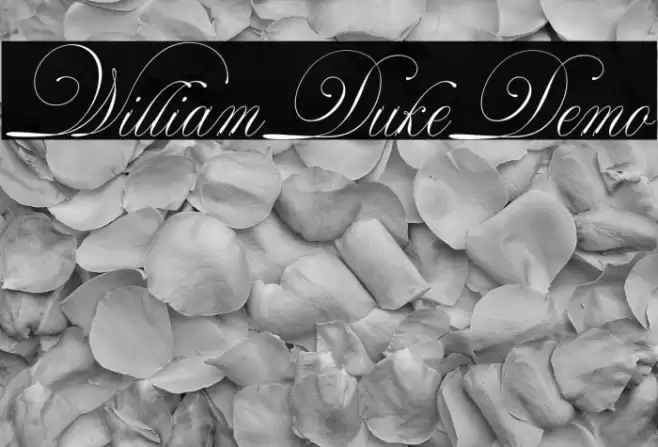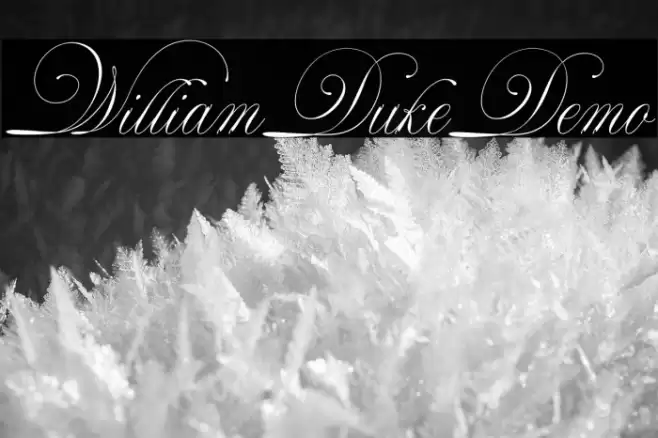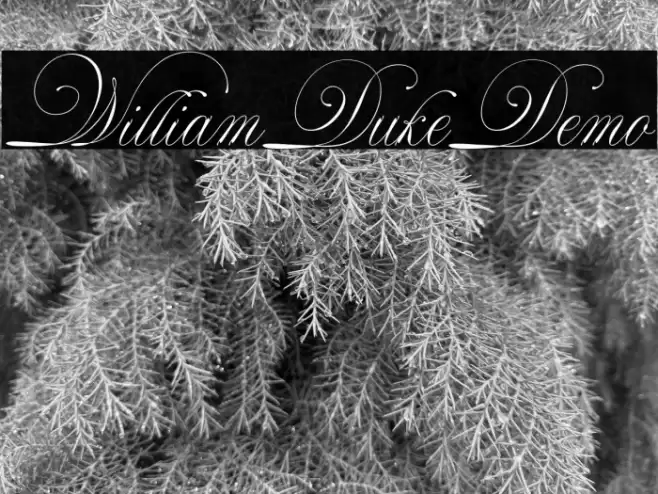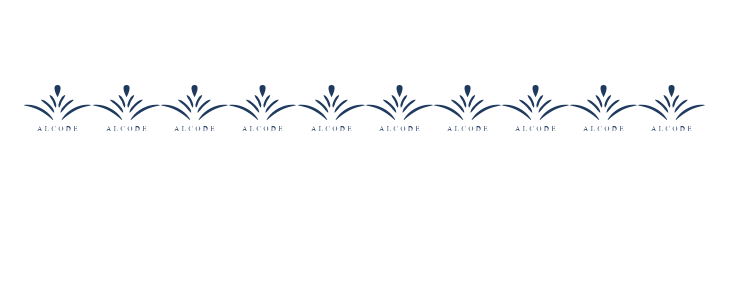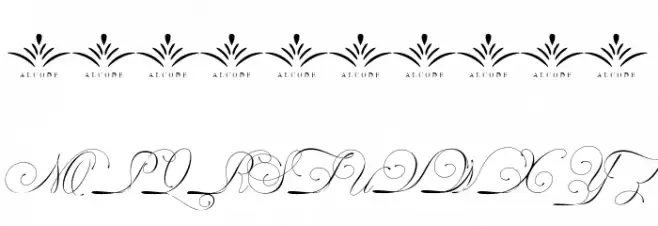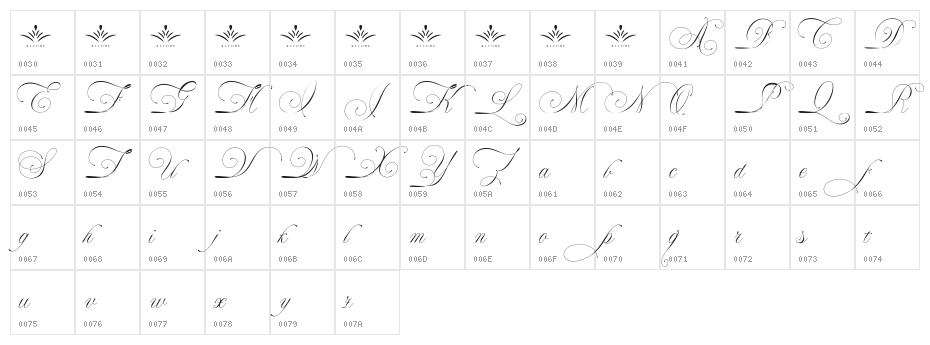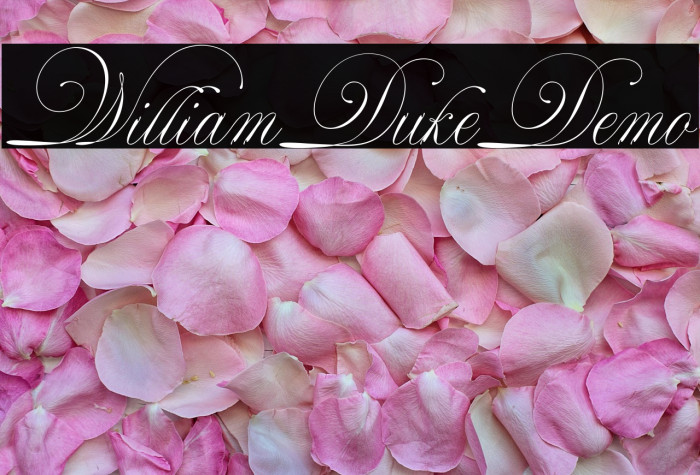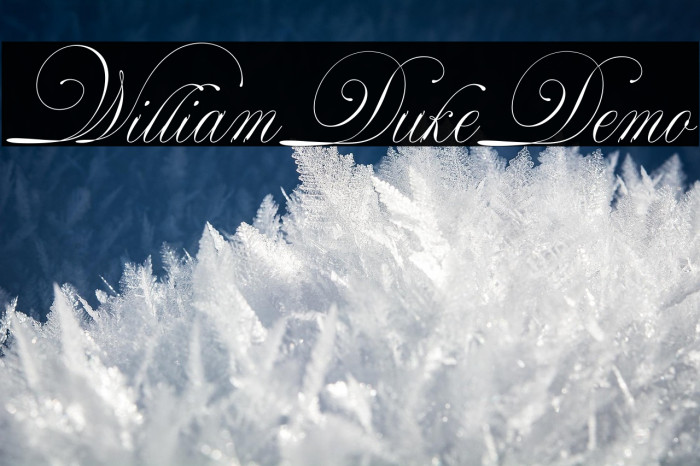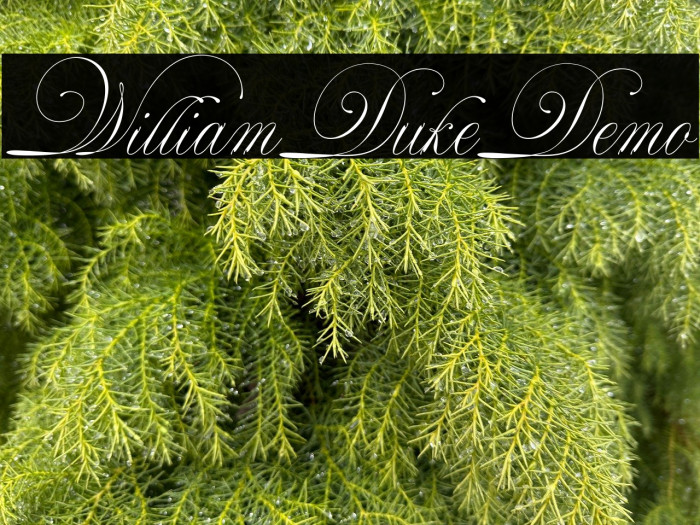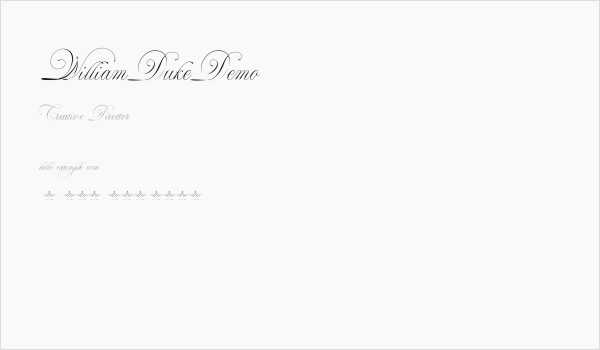
WilliamDukeDemo Font
WilliamDukeDemo Description
This elegant script font features intricate swashes and flourishes, giving it a highly decorative and sophisticated appearance. The uppercase letters are adorned with elaborate loops and curves, creating a sense of grandeur and formality. The lowercase letters maintain a fluid and graceful style, with some characters extending into long, sweeping tails. This font is reminiscent of classic calligraphy, with a modern twist that adds a touch of elegance and refinement. The overall design is highly ornamental, making it suitable for special occasions and formal invitations.
An elegant script font with intricate swashes and flourishes from Regular fonts.
- Proposed Projects: Ideal for wedding invitations, formal event programs, luxury branding, and decorative certificates.
- Use Case: Logos, Invitations, Decorative text